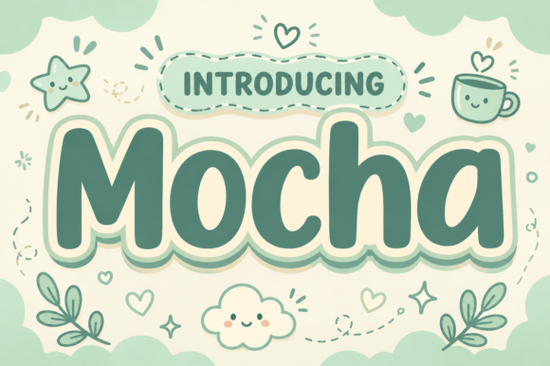
Pour some cozy warmth into your design projects with Mocha, a cute display font that radiates comfort and gentle charm. This typeface is perfect for designers, crafters, print-on-demand sellers, small businesses, and creative hobbyists looking to add a touch of softness and approachability to their work.
Why Choose Mocha Font for Your Design Projects?
Mocha is an ultra-bold, pillowy font with soft, rounded contours and clean geometry. Its unique personality feels like a warm hug from your favorite neighborhood café, making it an excellent choice for various design needs. Whether you're working on cozy coffee shop branding, playful lifestyle packaging, children’s book titles, or charming social media headers, Mocha delivers a sense of professional design mastery and legendary aesthetic sweetness.
Perfect for Cozy Coffee Shop Branding
If you're designing for a cozy coffee shop, Mocha's earthy cream and sage-green palette, along with its cloud-like sticker outline, can help create a welcoming and inviting atmosphere. The font's gentle charm and approachability make it ideal for menus, signage, and promotional materials. Consider pairing Mocha with other playful and child-friendly fonts to enhance the overall aesthetic.
Ideal for Playful Lifestyle Packaging
For playful lifestyle packaging, Mocha's ultra-bold and pillowy letterforms can add a touch of whimsy and comfort. Use it for product labels, gift boxes, and packaging inserts to create a memorable and appealing look. You might also want to explore Summer Flower Font for a complementary, floral touch that enhances the playful vibe.
Charming Social Media Headers
When it comes to social media, first impressions are everything. Mocha's soft, comforting, and incredibly inviting appearance makes it a great choice for social media headers. It can help set the tone for your brand and make your profiles stand out. For a more diverse range of options, check out Groovy Melt Font, which offers a different yet equally engaging style.
Great for Children’s Book Titles
Children’s books require fonts that are both visually appealing and easy to read. Mocha's clean geometry and soft, rounded contours make it a fantastic choice for book titles and cover designs. Its gentle and approachable nature can help engage young readers and make the reading experience more enjoyable. For more inspiration, you might also consider Harlow Chunky Font, which offers a bold and playful alternative.
Tips for Using Mocha Font Effectively
- Balance with Simplicity: While Mocha is ultra-bold and has a strong presence, balance it with simpler, more minimalistic elements to avoid overwhelming your design.
- Color Palette: Stick to the earthy cream and sage-green palette provided, or choose colors that complement these tones to maintain the cozy and inviting feel.
- Layered Effects: Experiment with the layered, cloud-like sticker outline to add depth and interest to your designs. This can be particularly effective for branding and packaging.
- Consistency: Use Mocha consistently across your design elements to build a cohesive and recognizable brand identity.